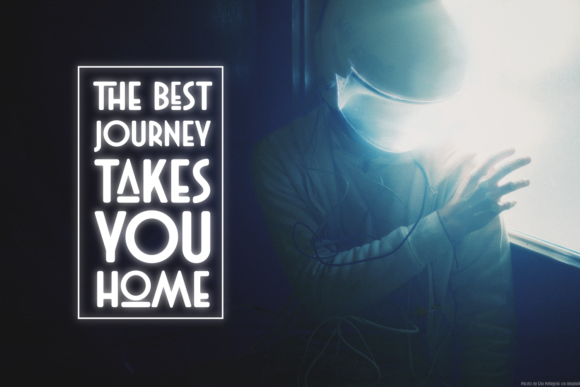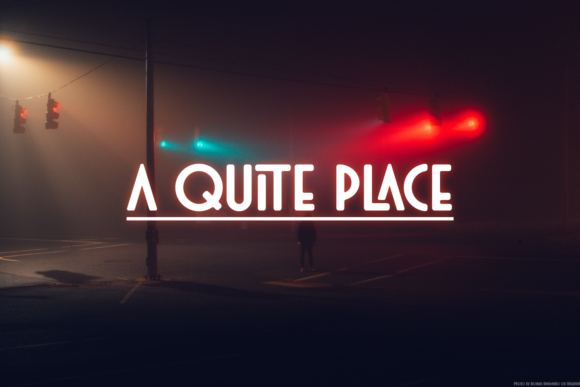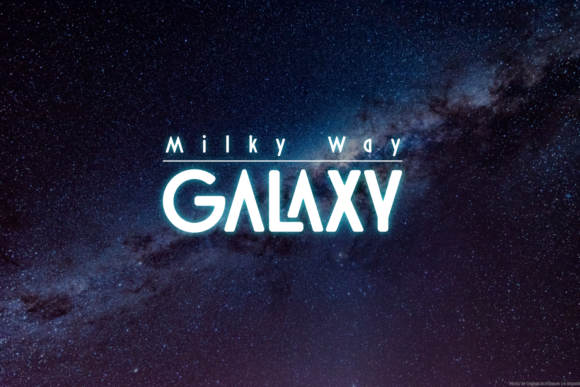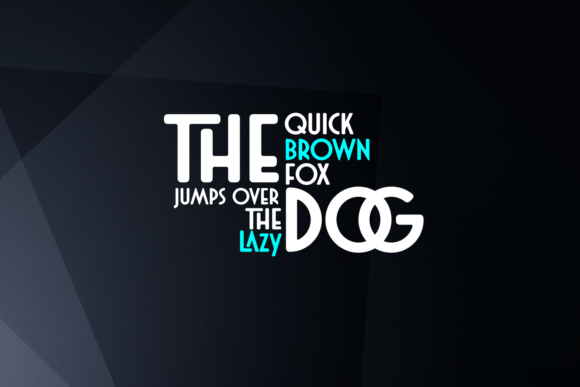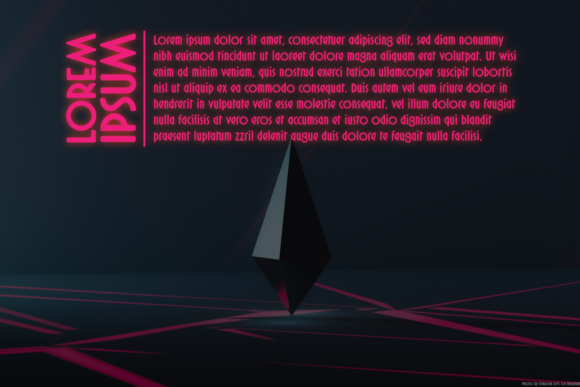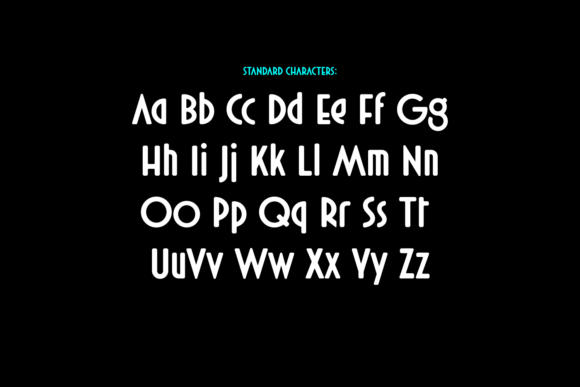
I still remember the frustration of working on a project, hours spent crafting the perfect design, only to be held back by one thing: the font. It was 2019, and I was working on a branding project for a tech startup. The client wanted something bold, modern, and edgy, but I just couldn’t find the right fit. That was until I stumbled upon Aront Font.
Introducing Aront Font
Aront is a bold, simple, and techno-looking display font that has become a staple in my design toolkit. This font is PUA encoded, which means you can access all of the glyphs and swashes with ease! It’s ideal for writing web designs, business cards, or pretty much anything else that requires a unique touch.
My Honest Review
- ✨ Easy to read: Despite being a bold font, Aront is surprisingly easy to read, even at smaller sizes.
- ✅ Versatile: From digital displays to print materials, Aront looks great in various contexts.
- 💻 Techno look: The font’s techno-inspired design makes it perfect for projects that require a modern, edgy feel.
- 🎨 Customizable: With PUA encoding, you can access a wide range of glyphs and swashes to customize your text.
While Aront is an excellent font, there are a few things to keep in mind:
- 🤔 Limited use cases for body text: Due to its bold nature, Aront is best suited for headings and titles rather than body text.
- ⚠️ May not work well with all languages: As with any font, some languages may not be supported or may require additional setup.
Aront Font was designed with the modern designer in mind. The creator aimed to craft a font that was both bold and versatile, perfect for a wide range of projects. By combining simple shapes with a techno edge, Aront was born – a font that’s equal parts modern and edgy.
Q: Is Aront Font suitable for body text?
While Aront is an excellent font, its bold nature makes it better suited for headings and titles. For body text, you may want to consider a font with better readability at smaller sizes.